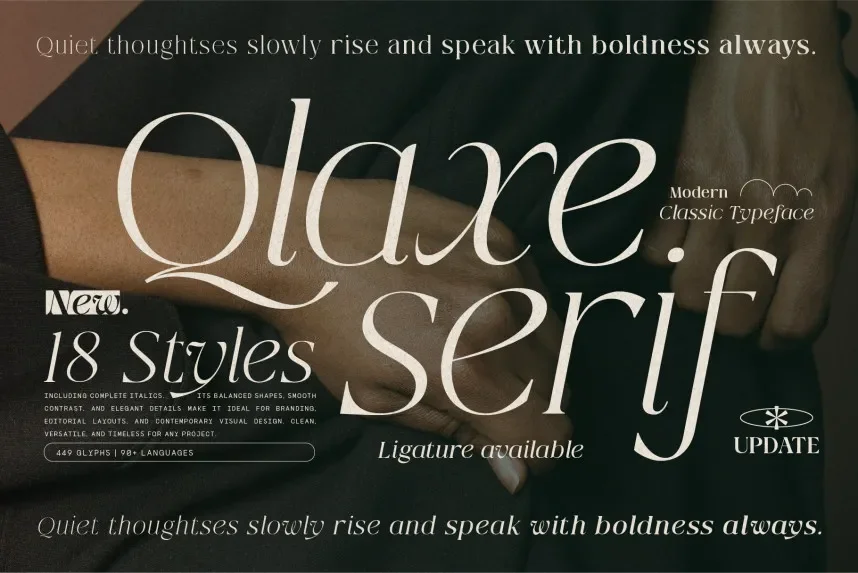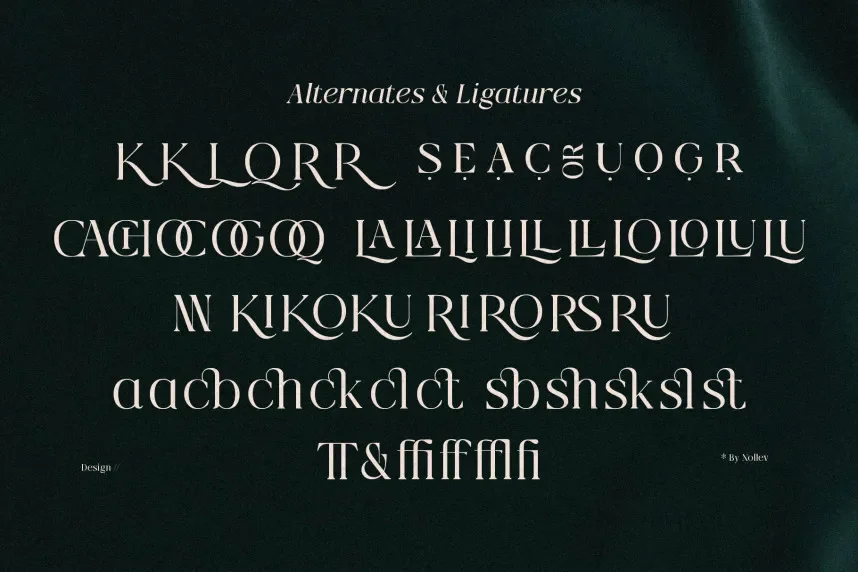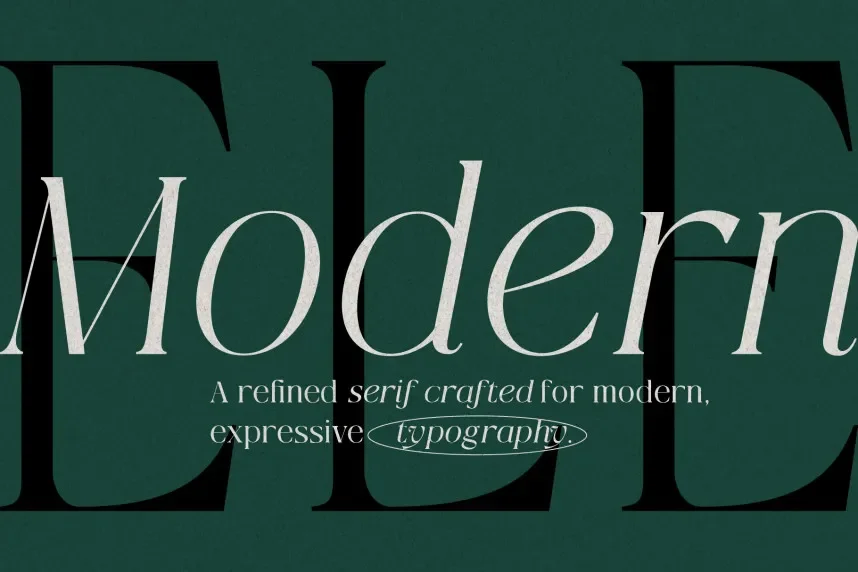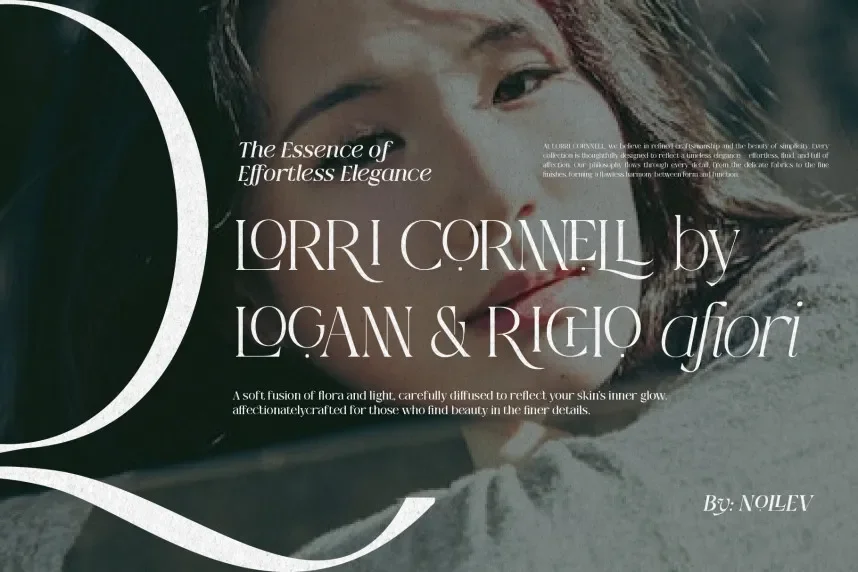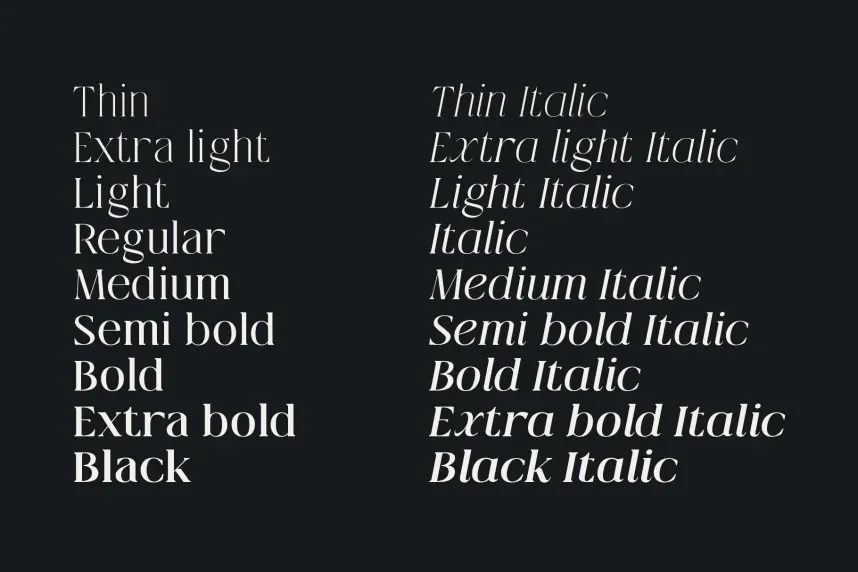
Qlaxe Serif is a serif typeface created for designers who need structured typography with a modern edge. It addresses readability and brand consistency problems often seen in editorial layouts, website headings, and professional print materials.
Qlaxe Serif falls under the modern serif category. Its letterforms feature clear stroke contrast, sharp serifs, balanced proportions, and controlled spacing. These traits support legibility while maintaining a refined, editorial appearance. The font structure suits both digital screens and high-resolution printing.
Designers commonly use Qlaxe Serif for brand identities, logos, magazine layouts, book covers, website headings, and UI typography where hierarchy and clarity matter. It works best for headlines, subheadings, and short paragraphs. For balanced layouts, it pairs well with neutral sans-serif fonts like Lato or Inter for body text.